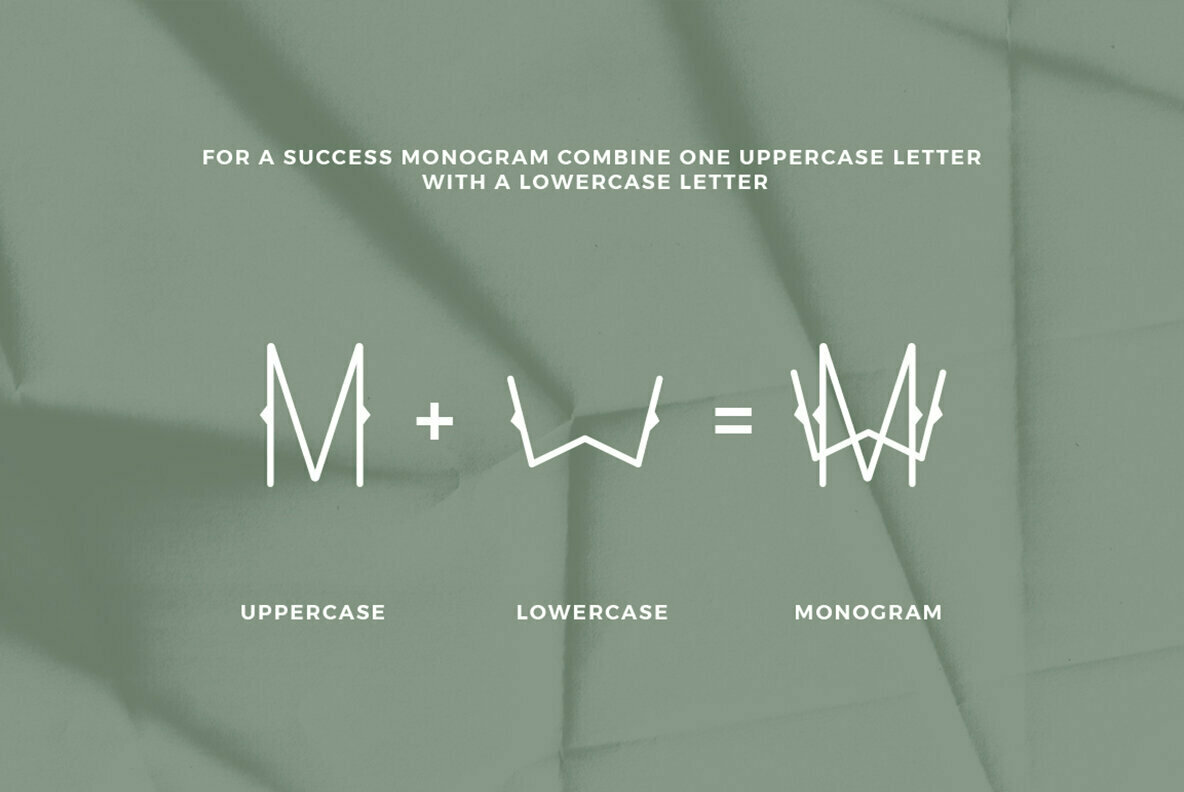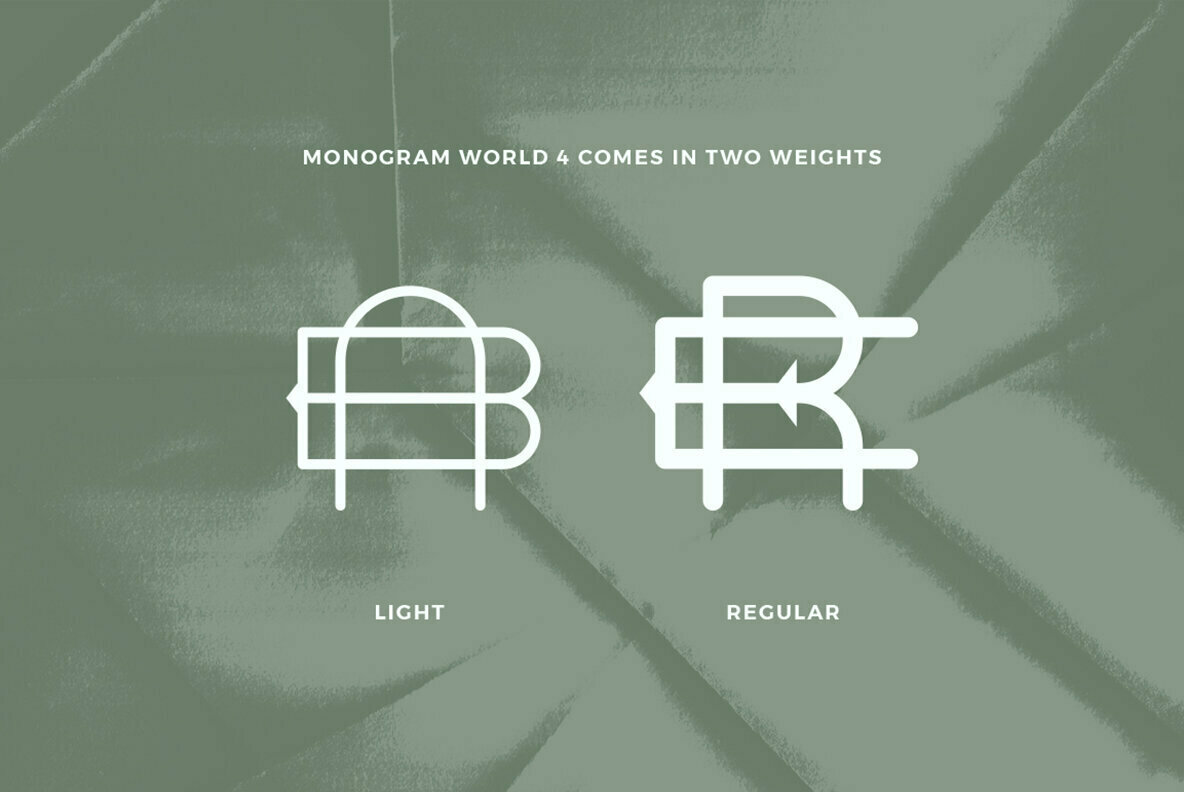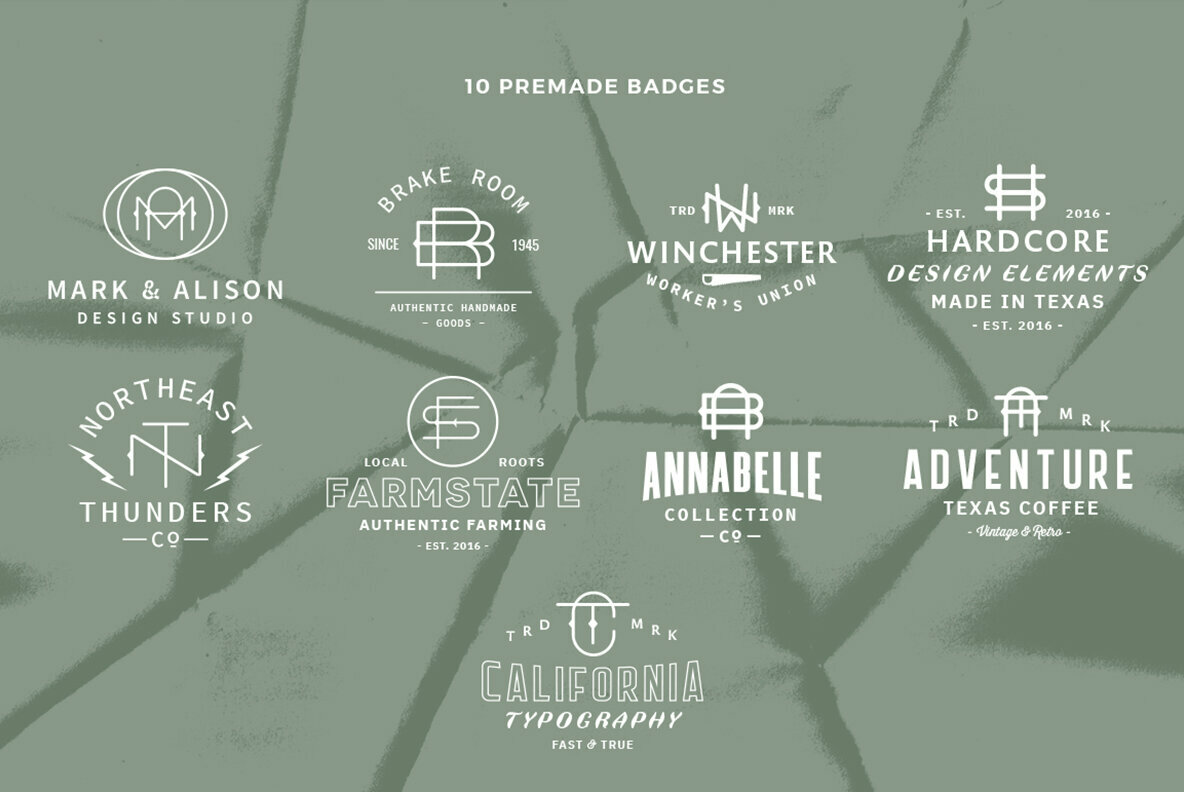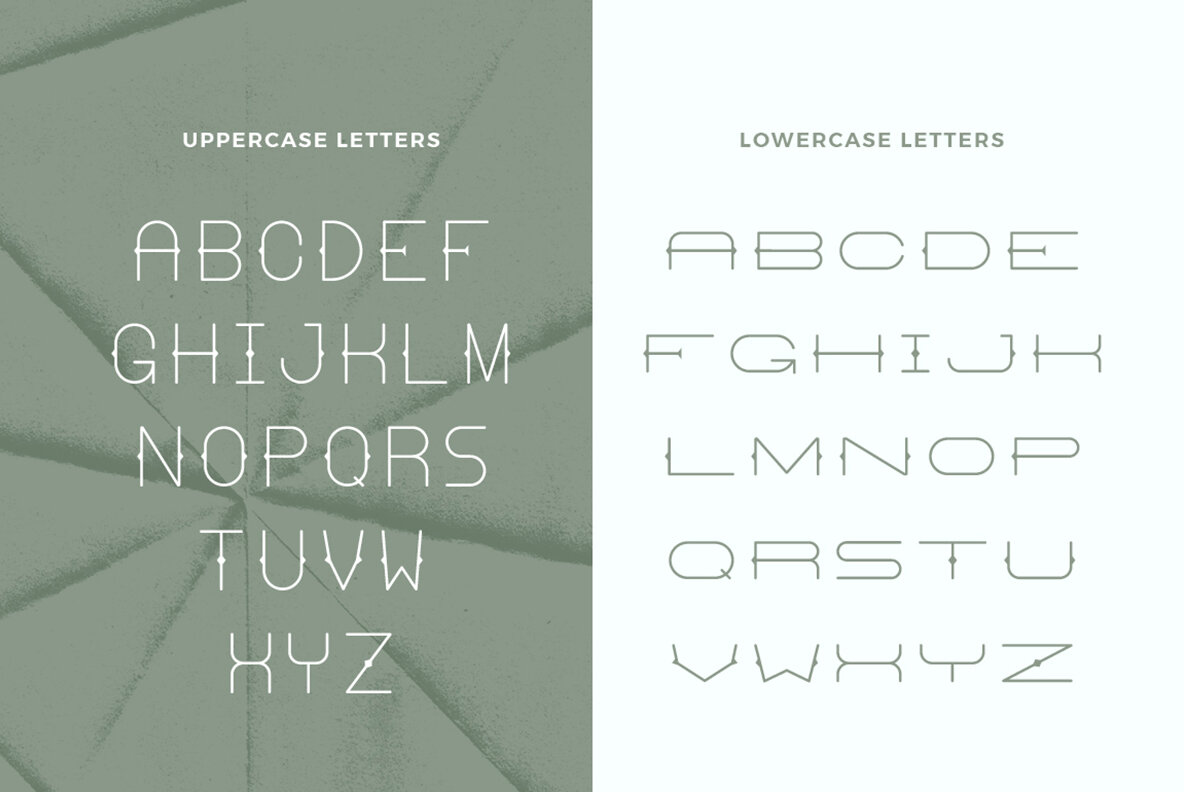
Monogram World 5 Font
This package of monograms will help you save time and money when you create a monogram badge. The letters were created so you can build a monogram very easy, just select an uppercase letter and a lowercase letter, place them on top of each other, adjust them to have the same center and you will get an original monogram. Combining all the letters of a font you can get more than 600 monograms.